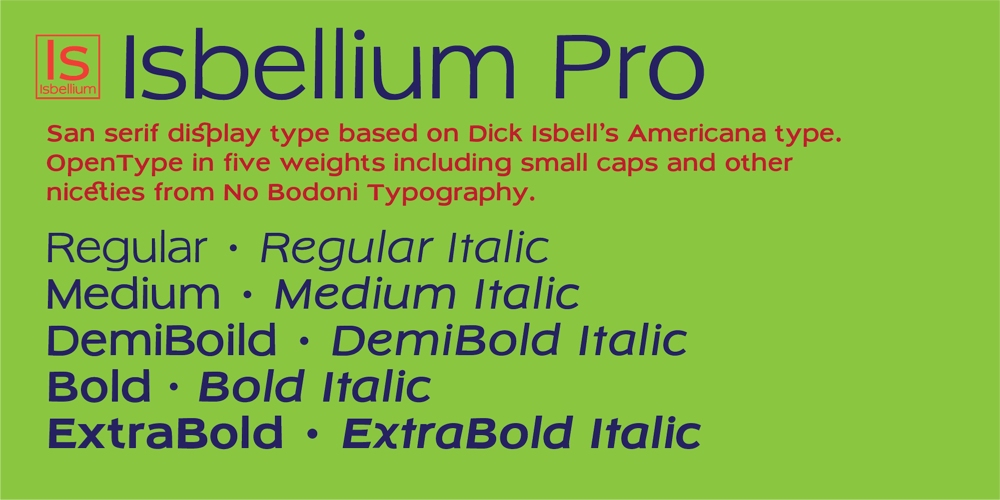
Isbellium Pro Font Family was designed by George E. Thompson and published by No Bodoni. Isbellium Pro contains 10 styles and family package options. Isbellium is a sans serif version of Dick Isbell’s Americana type, designed in 1967 and the last type cut in metal by the American Type Founders Co. (ATF). Isbellium retains the large x-height, open character, wide stance and elegance of Americana, but with a quieter voice and polite authority.Isbellium is a display face with broad Latin support along with small caps, fraction support and other typographic niceties are included in the ten font family.